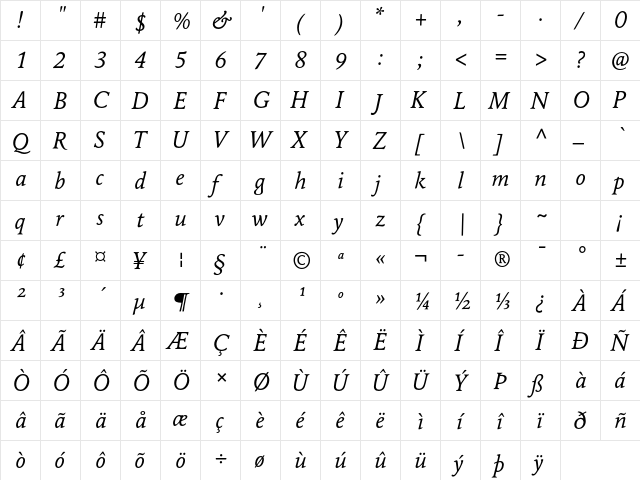
Maxime Std Italic
Design Context for Maxime Std Typeface
Maxime Std is a composed and adaptable typeface that performs quietly and consistently across a wide range of design contexts. Its italic angle brings a sense of urgency and motion to the letterforms.
Pro Tip: Use Maxime Std for emphasis, pull quotes, and subheadings where its slanted energy can add rhythm to the layout.